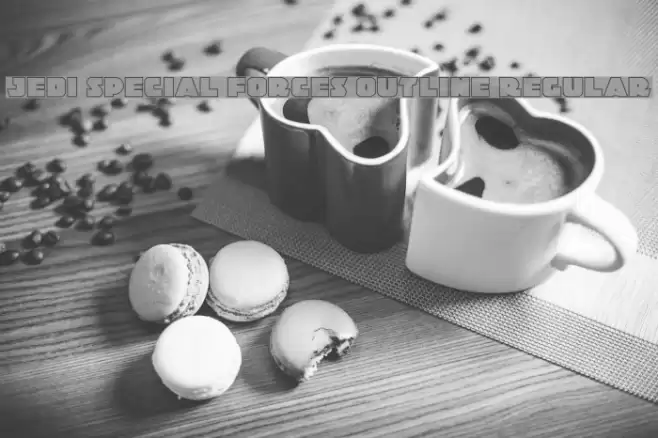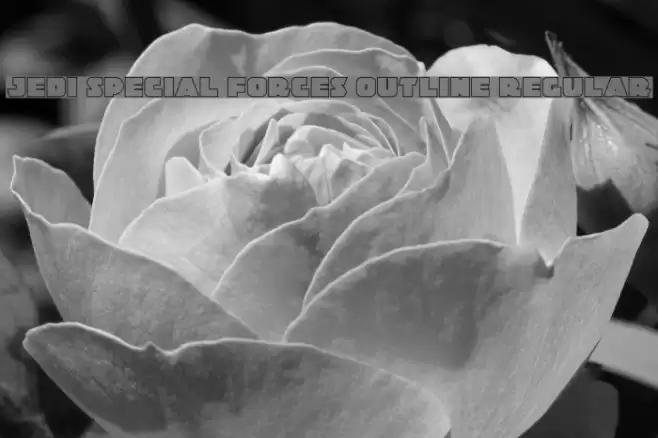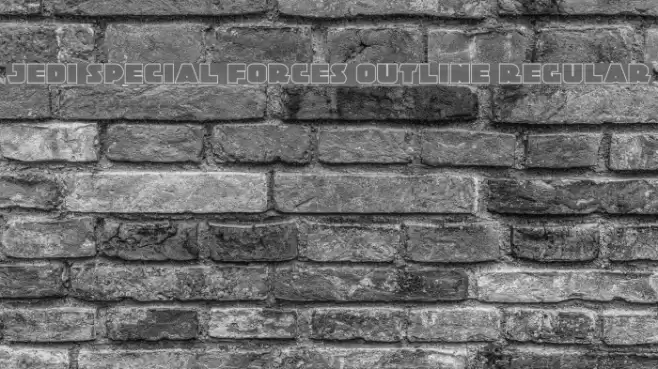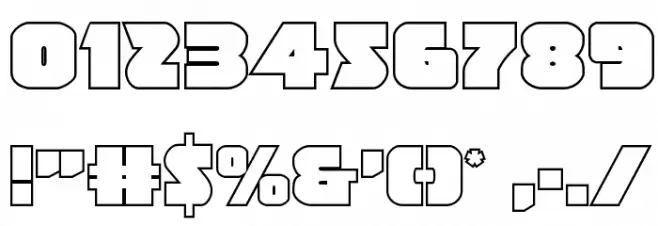
Jedi Special Forces Outline Regular Font
Jedi Special Forces Outline Regular Description
This font features a bold, geometric design with an outline style that gives it a futuristic and dynamic appearance. The characters are constructed with sharp angles and straight lines, creating a sense of movement and energy. The uppercase letters are uniform in height, while the numbers and special characters maintain the same bold, outlined aesthetic. This font is ideal for projects that require a modern and impactful look, such as sci-fi themed designs or tech-related branding. Its unique style makes it stand out, while the clear outlines ensure readability even at smaller sizes.
A bold, geometric outline font with a futuristic and dynamic style from Uncategorized fonts.
- Proposed Projects: Ideal for sci-fi themed designs, tech branding, posters, and video game titles.